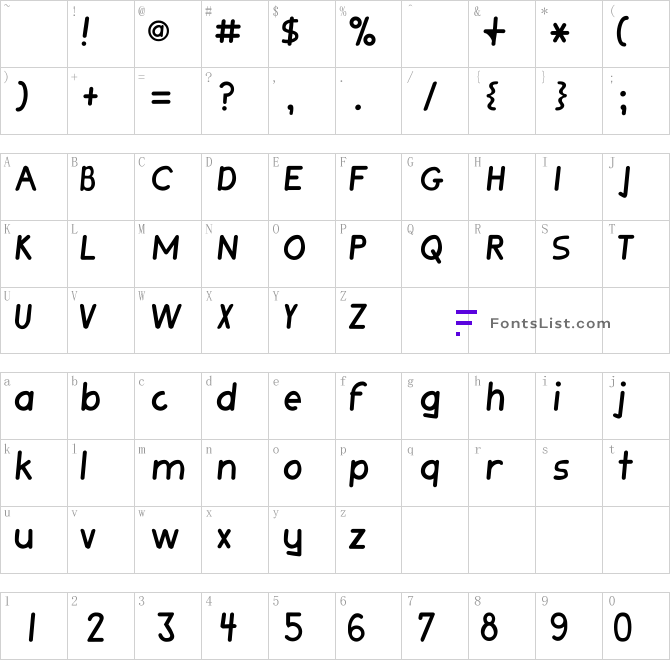
- Font Name:AquilliaComicHa
- Subfamily:-------:AquilliaComicHa Regular:-----
- Full Name:AquilliaComicHa
- PostScript:AquilliaComicHa
AquilliaComicHa.ttf is a very beautiful artistic font, AquilliaComicHa.ttf is widely used in the design and printing of various books and pictures,AquilliaComicHa.ttf has a strong visual impact,AquilliaComicHa.ttf is a commonly used font in newspapers, magazines and books, and is used in posters, e-commerce Poster design, store design, logo design, font design and other fields.AquilliaComicHa.